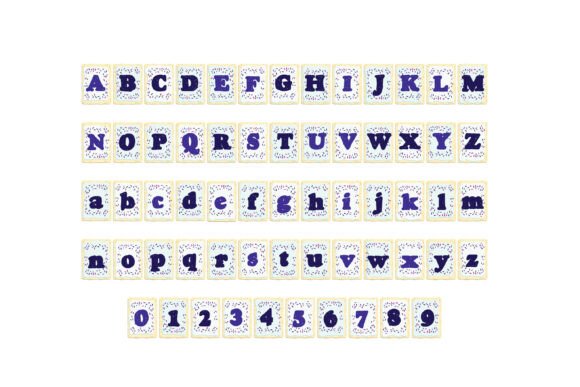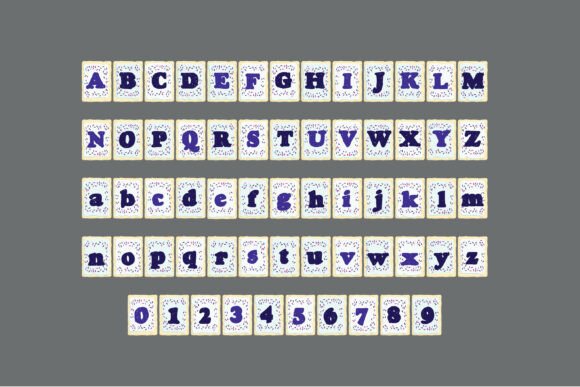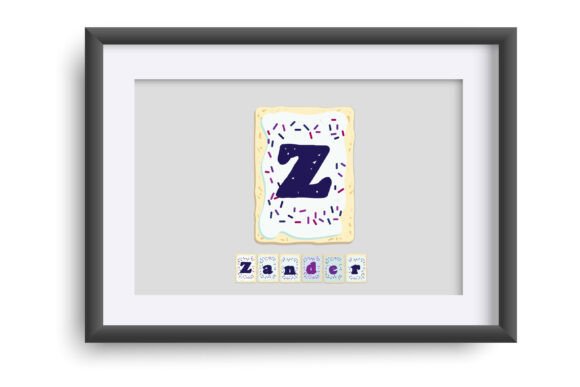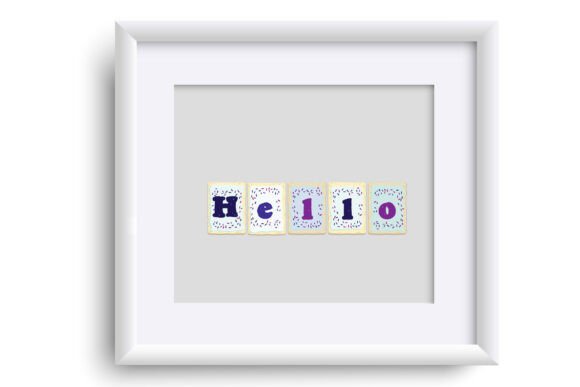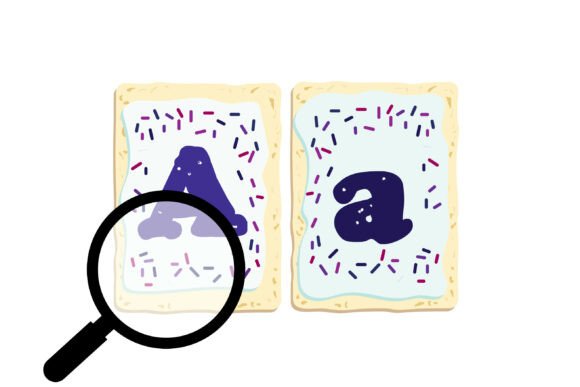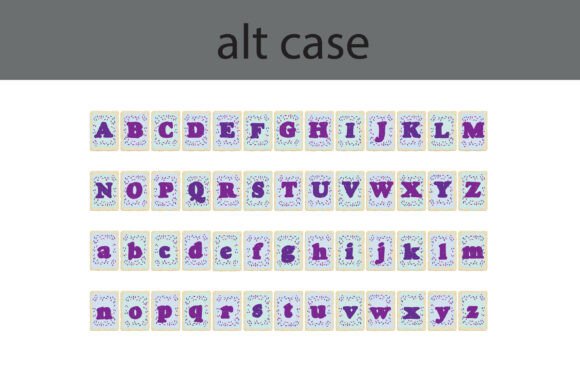
Discover the Sweet Taste of Typography
Who doesn’t have a weakness for the classic blueberry pop? Remember biting into that sweet, crunchy treat, the explosion of flavors on your taste buds? For designers, the nostalgic charm of childhood treats can be a powerful creative spark. It’s the perfect moment to revisit the idea of Blueberry Pops Font, a high-impact, full-color SVG font that’s sure to bring a smile to your face and a pop of color to your designs.
With its bold, ink-textured letterforms and hand-illustrated backgrounds, Blueberry Pops Font is the perfect choice for designers looking to add a touch of whimsy and personality to their work. Whether you’re branding an artisanal bakery, creating labels for an independent snack shop, or crafting social media headers for a foodie vlog, this font is sure to be a hit.
Blueberry Pops Font Key Features
- Font Family: Blueberry Pops is a unique and playful font designed for digital and print use.
- Unique Characteristics: Blueberry Pops features a distinctive, hand-drawn design with a mix of rounded and angular elements, creating a playful and whimsical feel.
Review of Blueberry Pops Font
Overall, I think the Blueberry Pops Font is a fun and playful addition to any design project. ✨ Its unique, hand-drawn style and varied line weights give it a lot of character and make it perfect for creating eye-catching headlines and graphics.
One of the things I love about this font is its versatility. ✨ It works well for a wide range of designs, from children’s books and party invitations to food and beverage branding. It’s also great for creating a whimsical or retro vibe.
However, I do think the font could benefit from a few more weights and styles. ⚠️ A few more condensed or expanded options would be helpful for creating more complex compositions. Additionally, the font may not be suitable for all types of text, such as body copy or long blocks of text.
Here are some specific strengths and weaknesses:
- ✨ Unique, hand-drawn style adds character to designs
- ✨ Versatile and works well for a wide range of designs
- ⚠️ Limited weights and styles may not be suitable for all compositions
- ⚠️ May not be suitable for all types of text
Overall, I think the Blueberry Pops Font is a great choice for designers looking to add a touch of whimsy and fun to their projects.
The Blueberry Pops Font is ideal for:
- Children’s books and educational materials